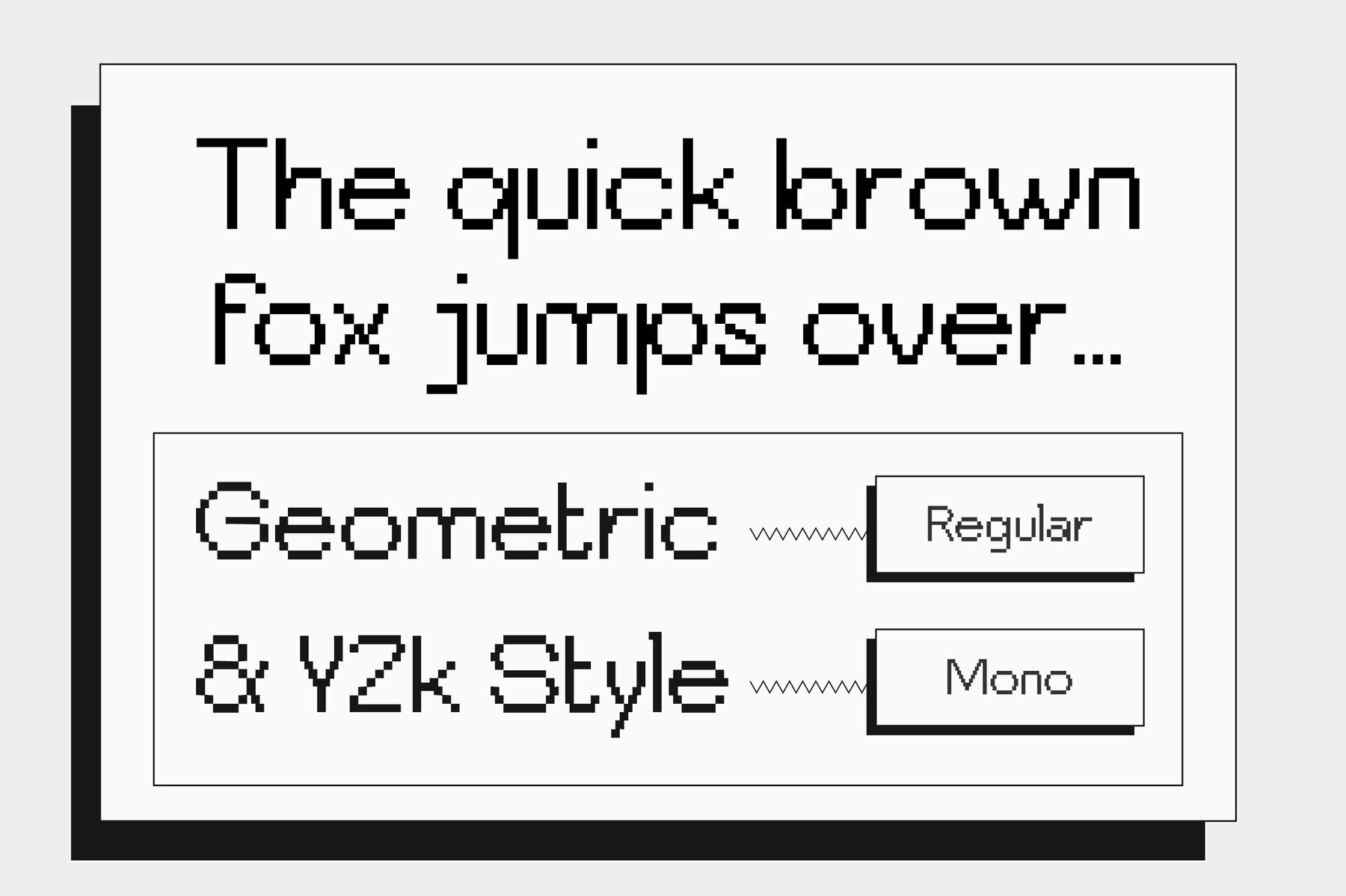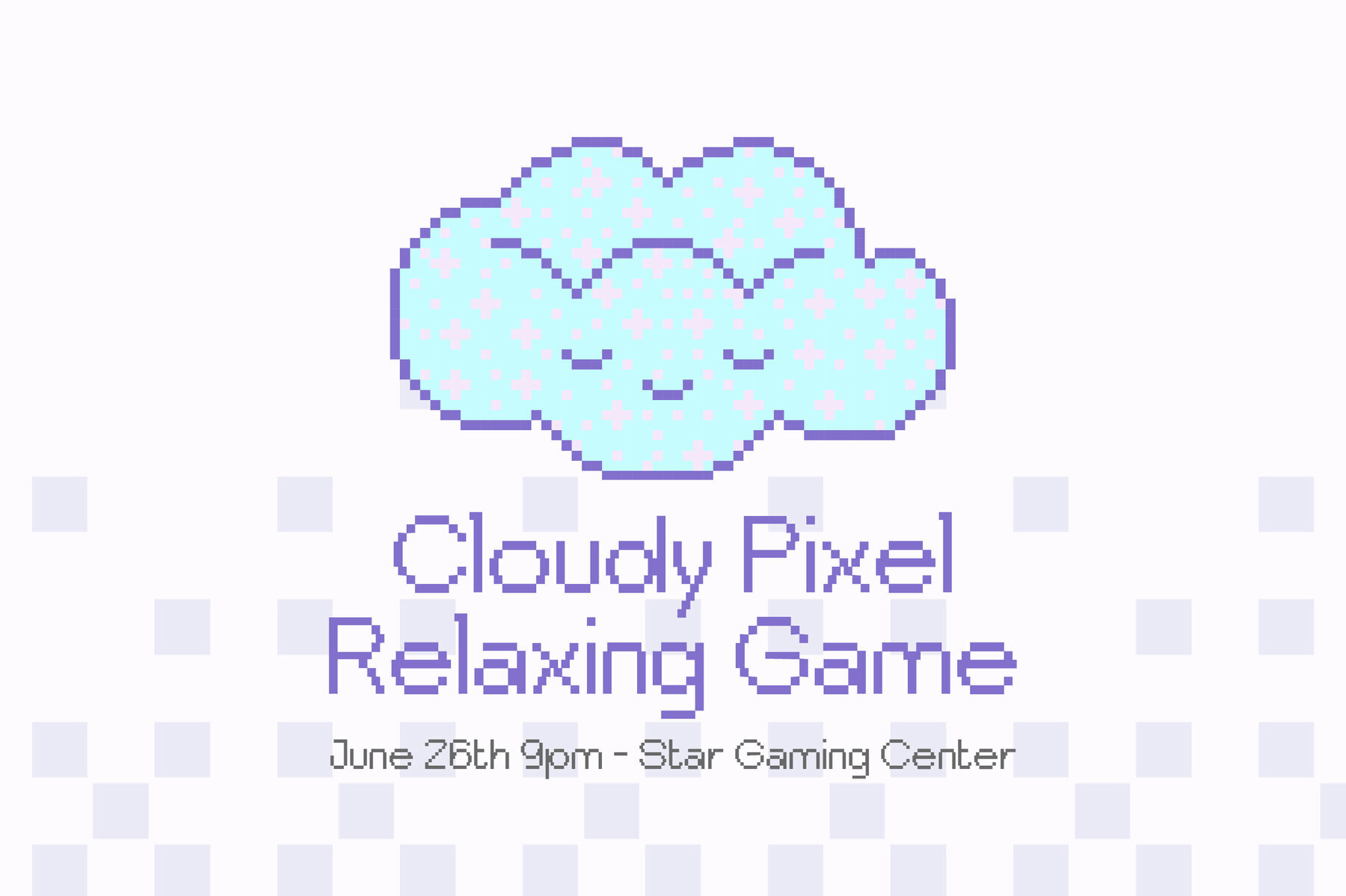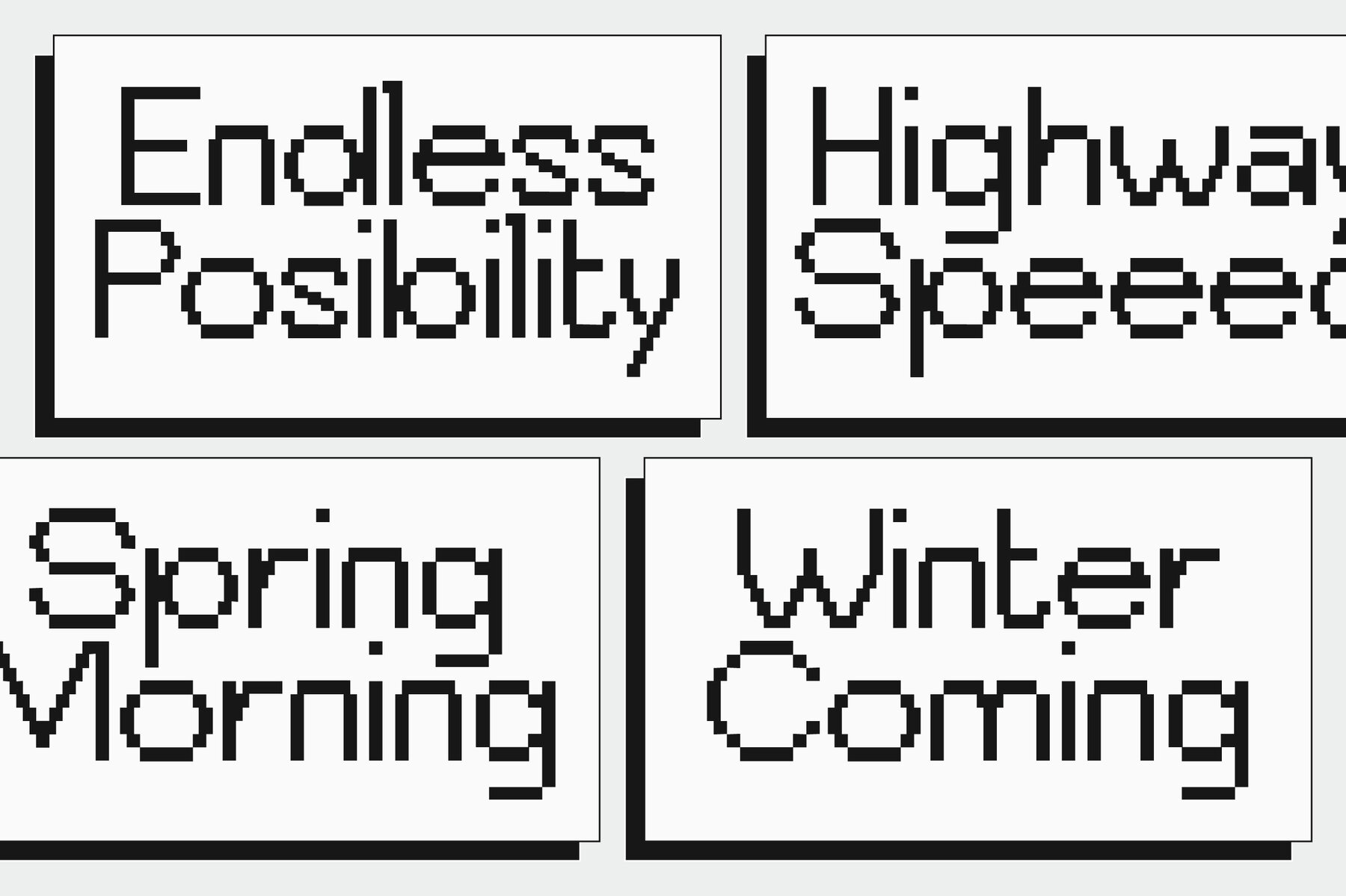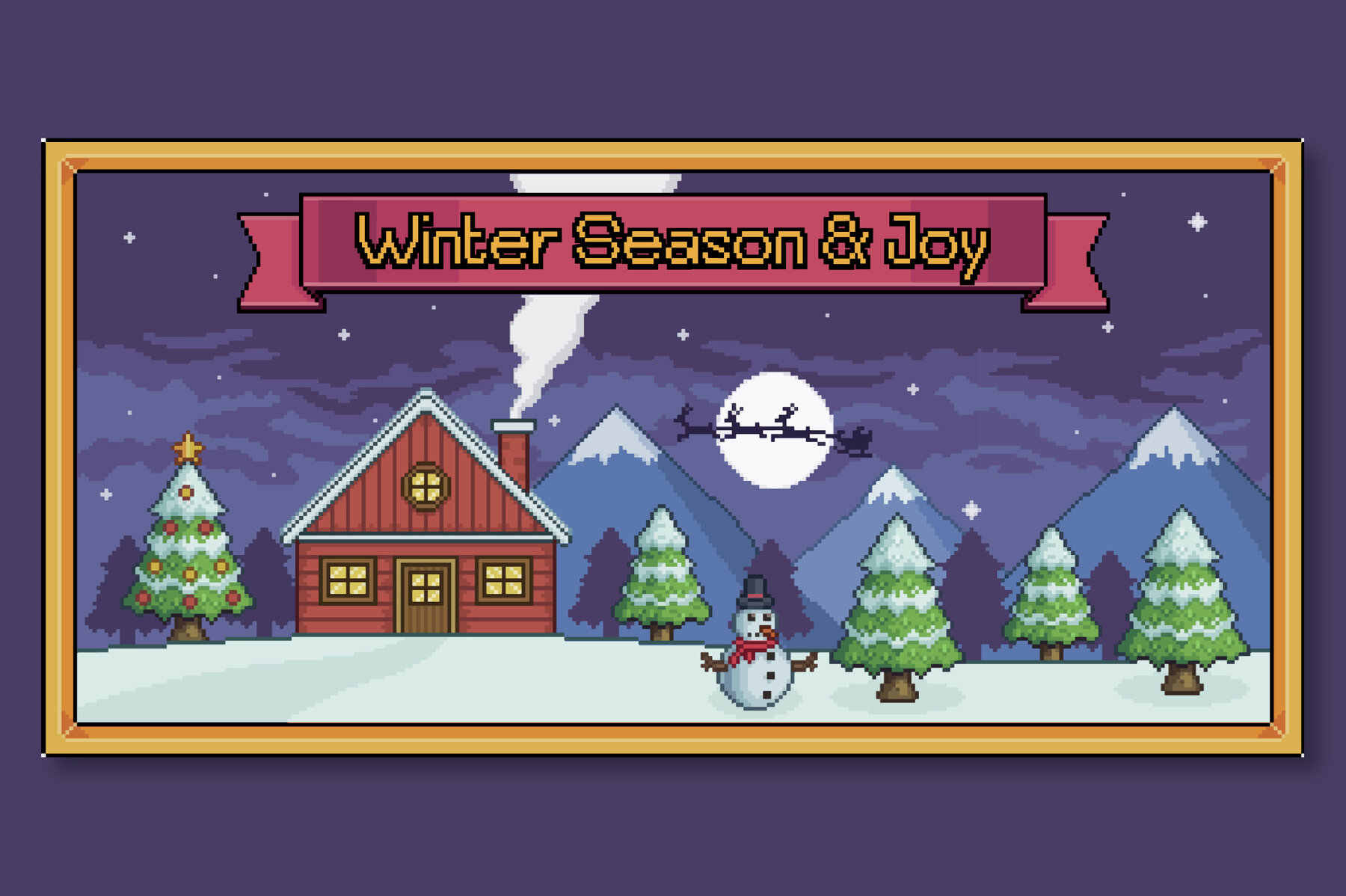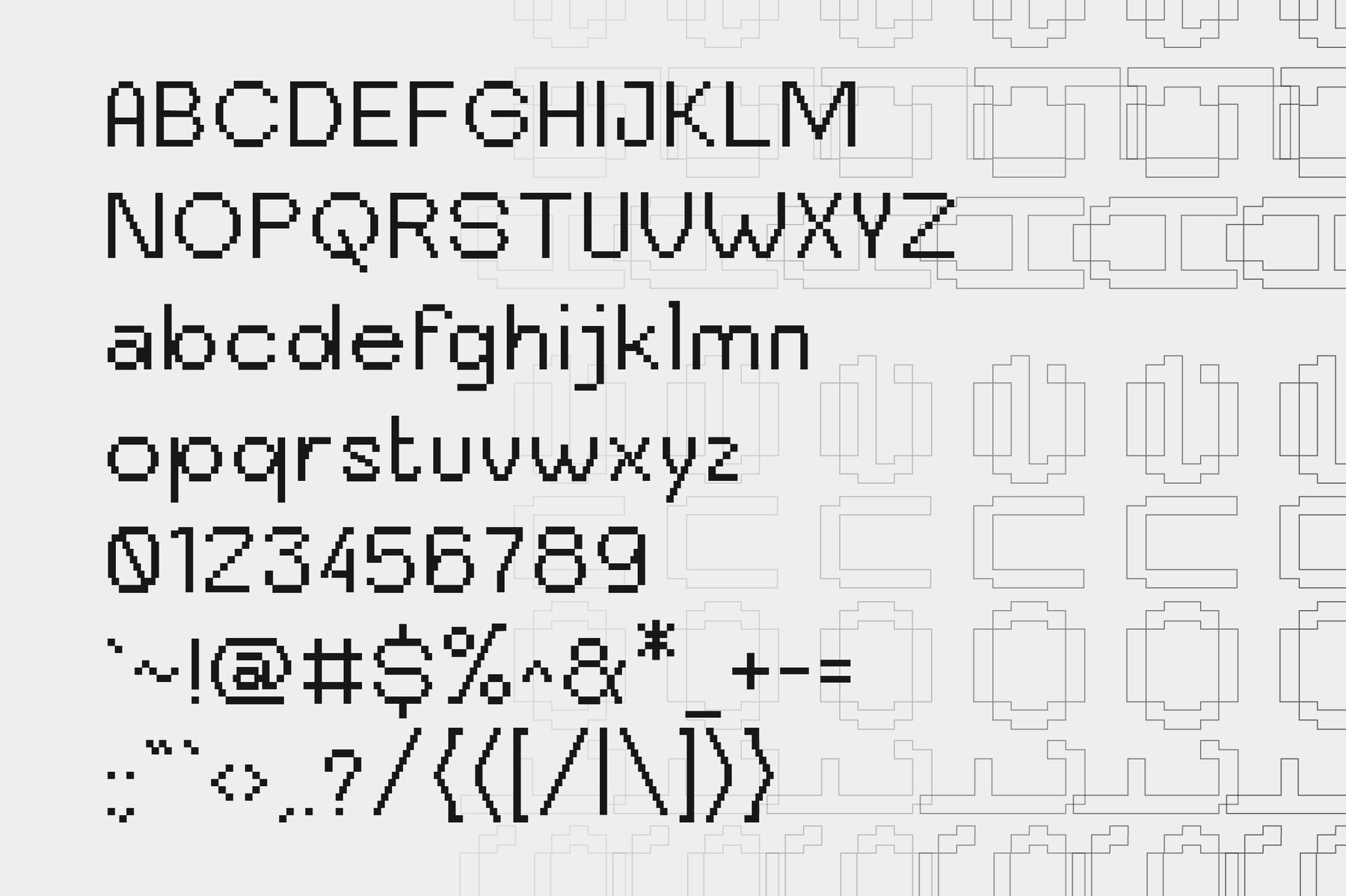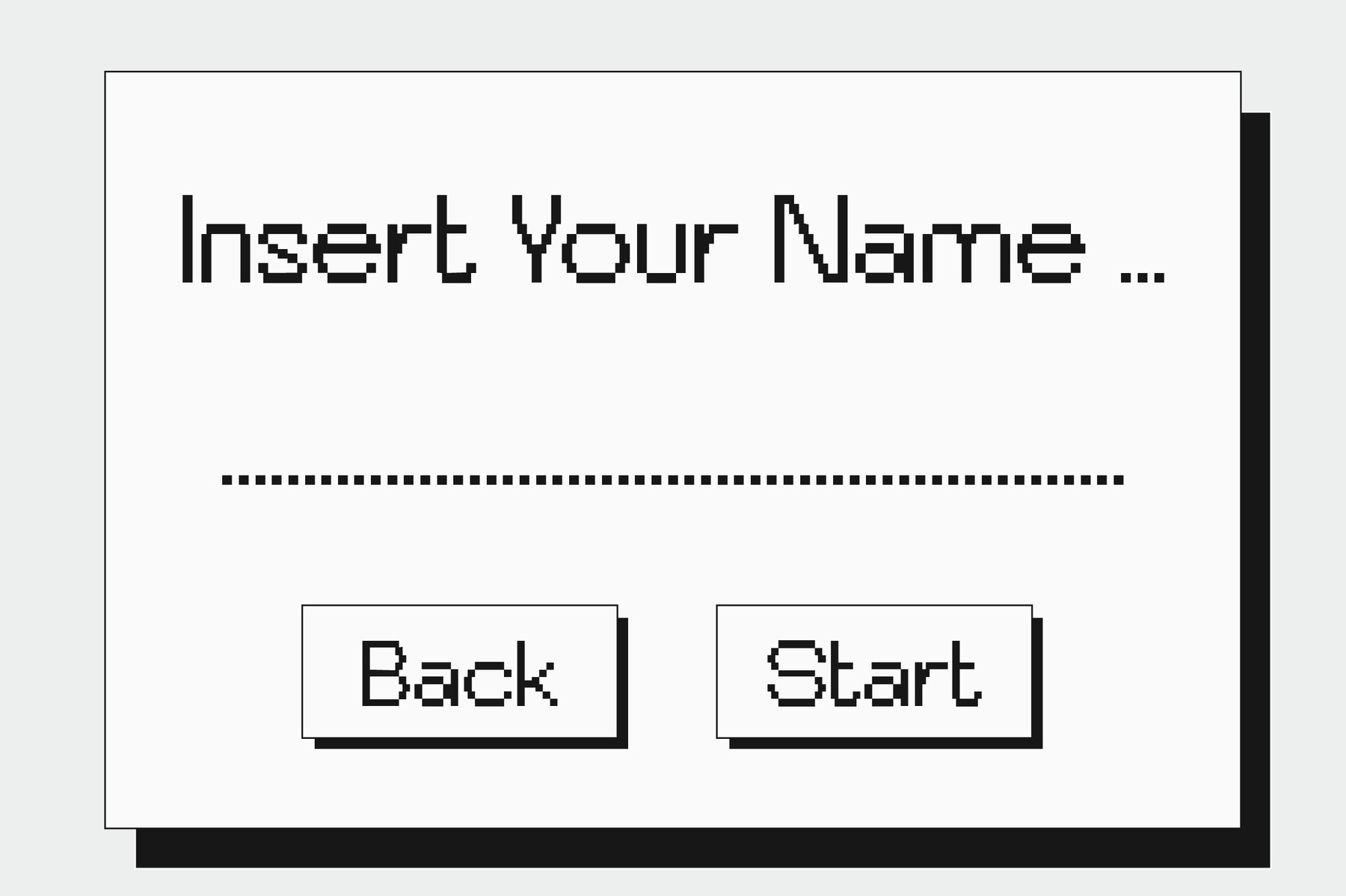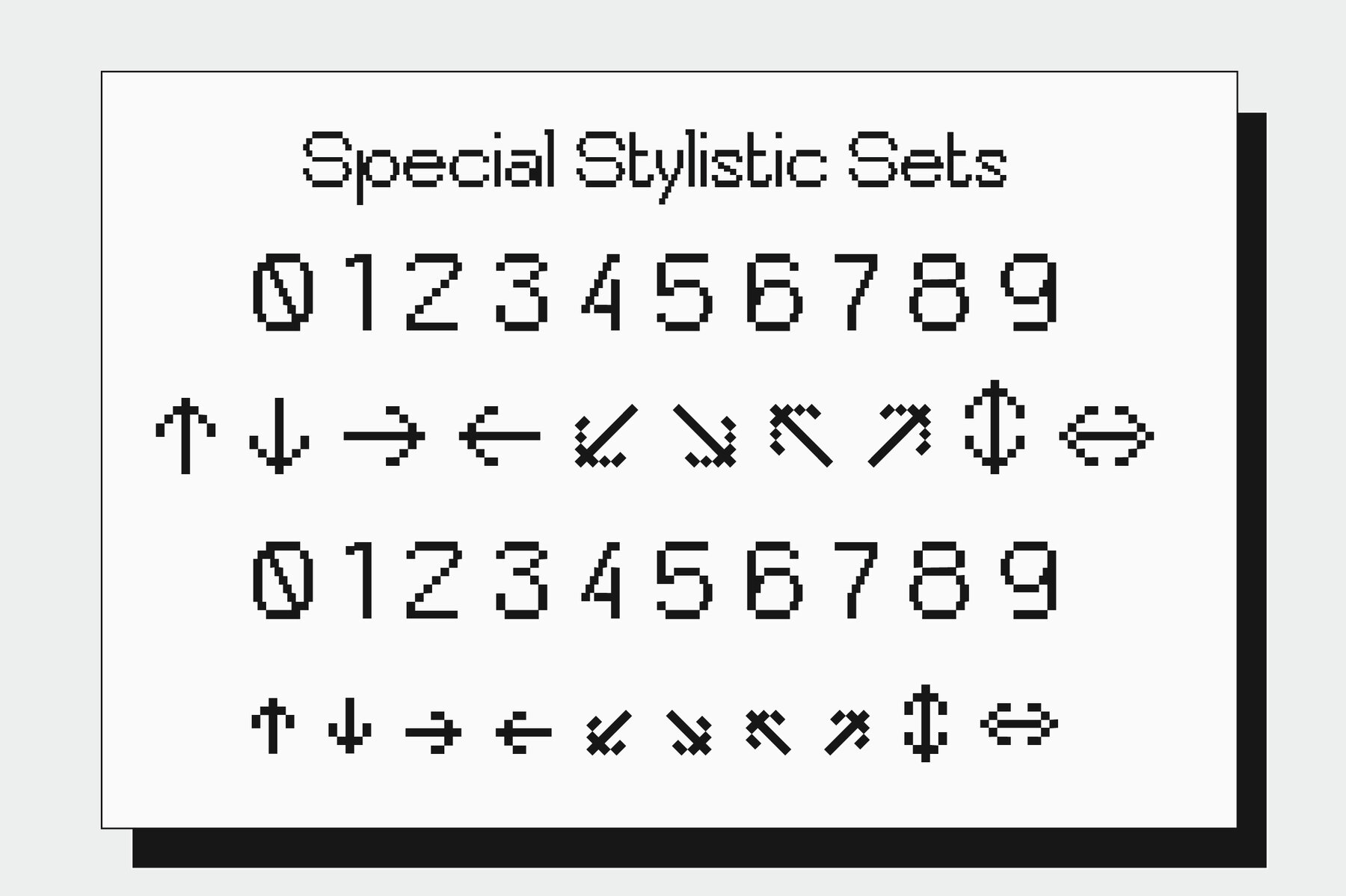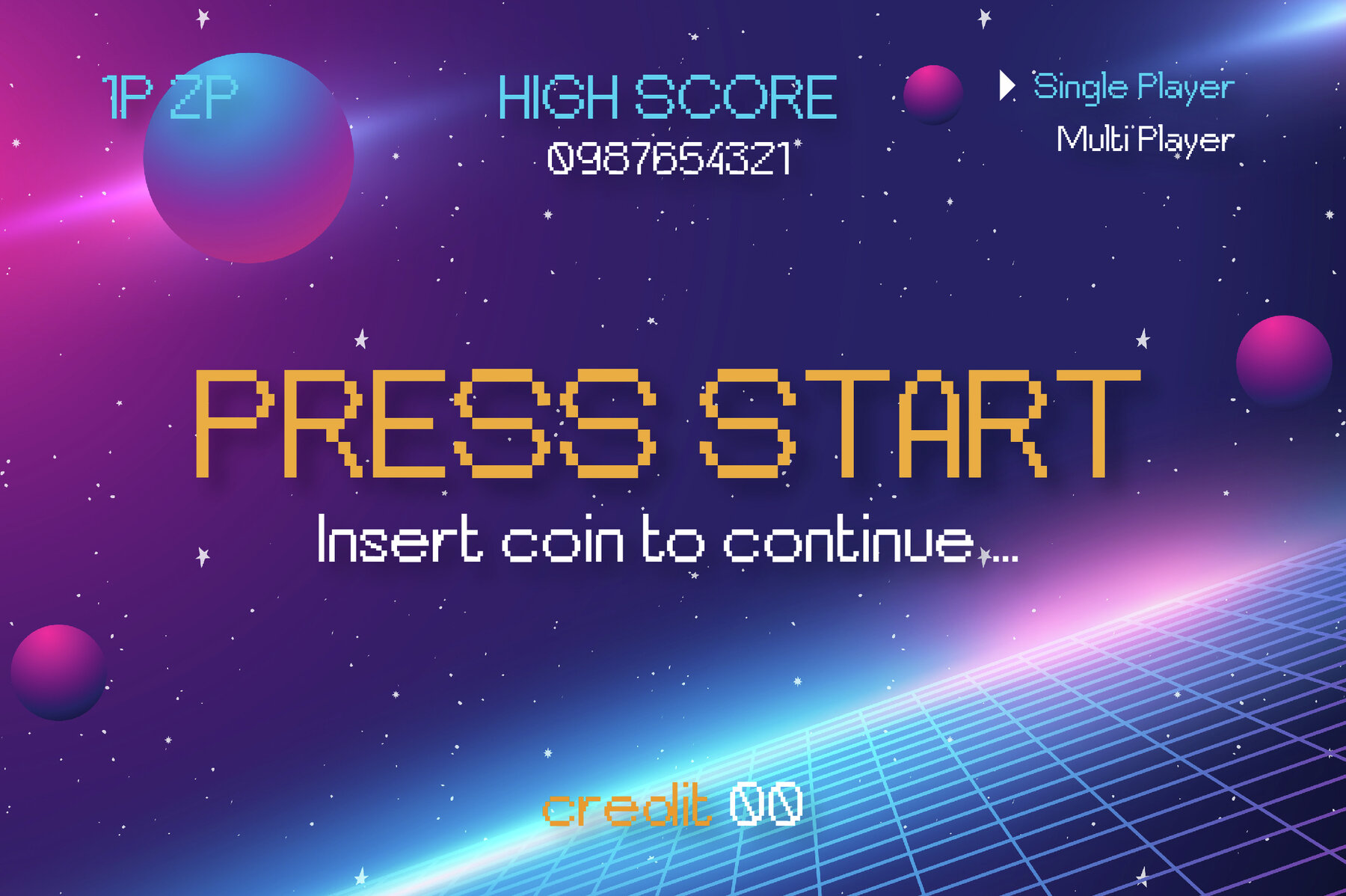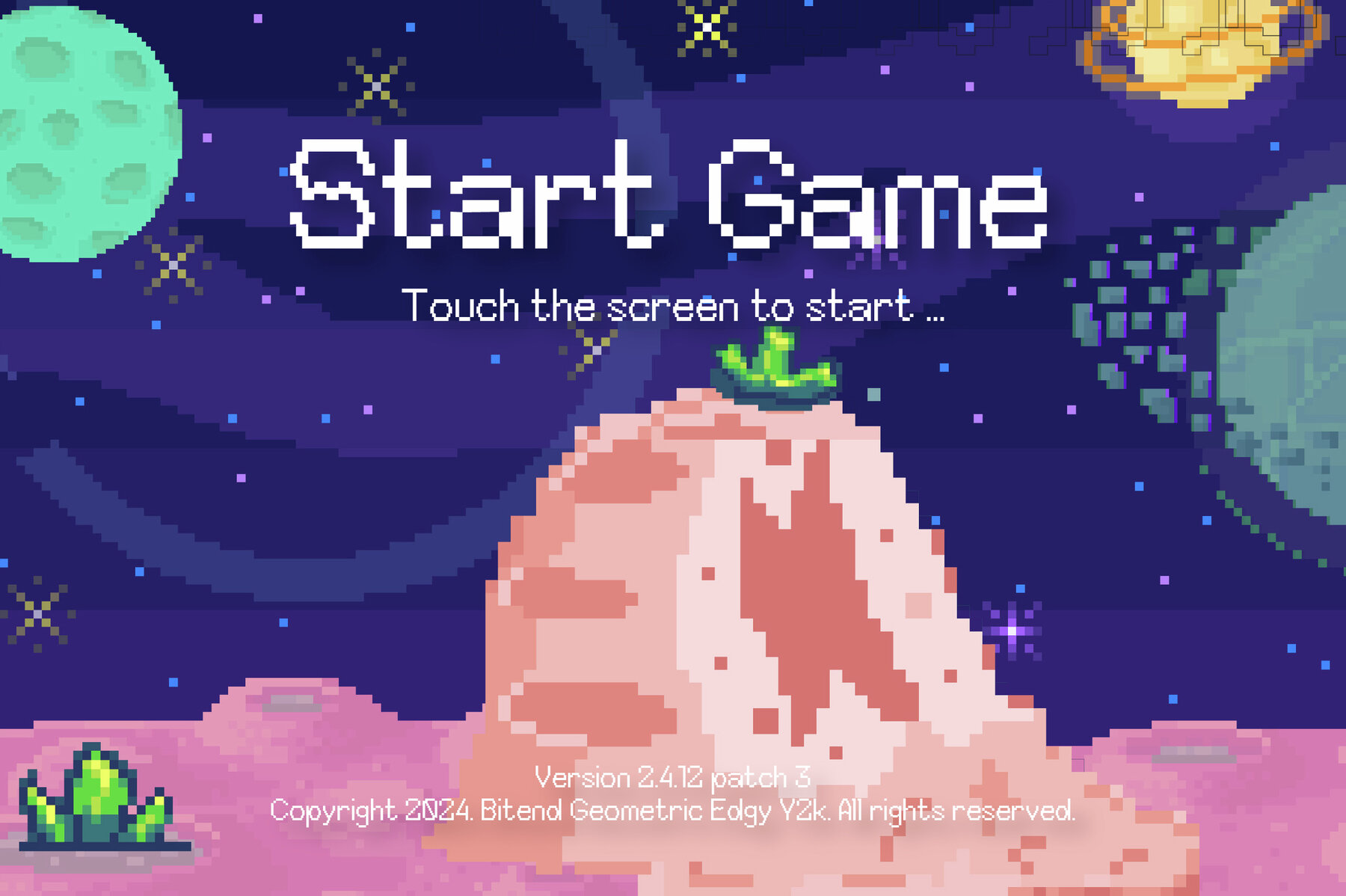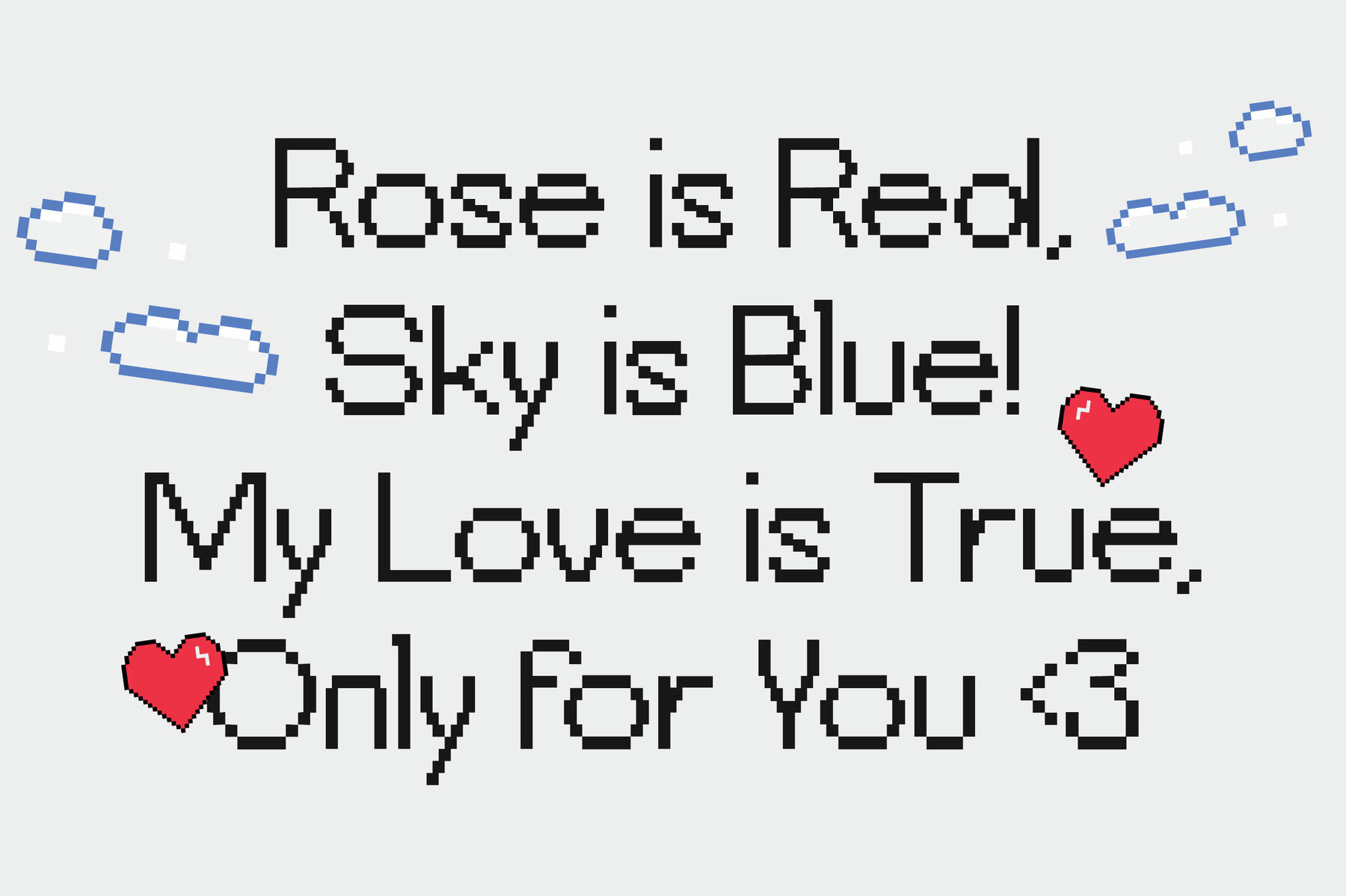
Bitend Font
Bitend is a geometric, edgy font that artfully blends the nostalgic charm of the 80s with the futuristic flair of the early 2000s. Ideal for bold, retro-inspired designs, this font adds a playful yet impactful touch to headlines, logos, pixel games, and editorial projects. With styles ranging from normal to monospaced, Bitend offers both versatility and a unique vintage aesthetic. It supports multilingual projects, making it suitable for a wide array of digital and print creations, regardless of size.Bitend: Bold Retro-Inspired Typography
Features of Bitend